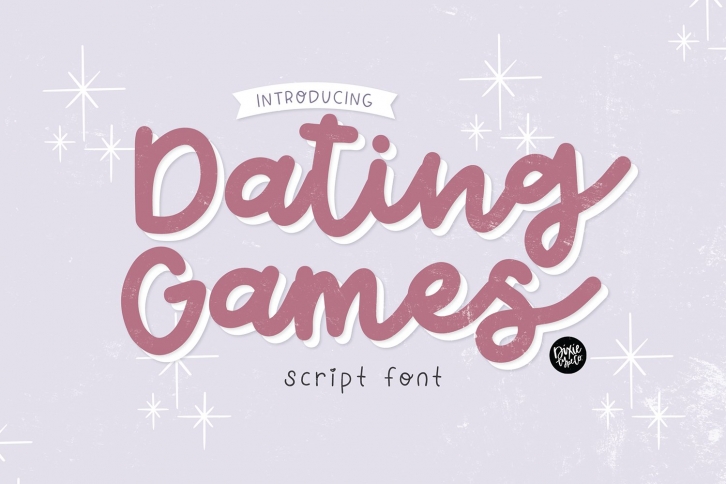
DATING GAMES Romantic Script is a beautiful font that was designed by Dixie Type Co. It's a great choice for designers and creatives who need such a font. It was released on January 11, 2021 and the file size is 8.98 MB. DATING GAMES Romantic Script may give a more youthful, expressive and casual look to your project. It is a very beautiful, refined, elegant, and high-quality font.